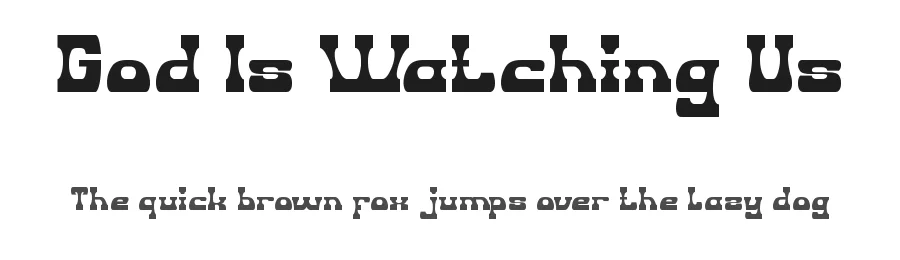
About Freshman Font
Freshman is a decorative font designed by William Boyd. It includes 86 glyphs, a regular weight, TTF (TrueType) format, and 107 languages. Freshman is free to download; check the license details on this page before commercial use. Decorative fonts like Freshman work best for logos, posters, packaging, and standout headlines.
Freshman Font is a decorative font that shines as a display or heading face. Pair it with a clean sans-serif or serif font for body text β the contrast creates a clear hierarchy while the two styles stay balanced and easy to read.
Freshman Font
by William Boyd
Freshman Font is a decorative typeface by William Boyd, ideal for logos, invitations, branding, and creative projects.